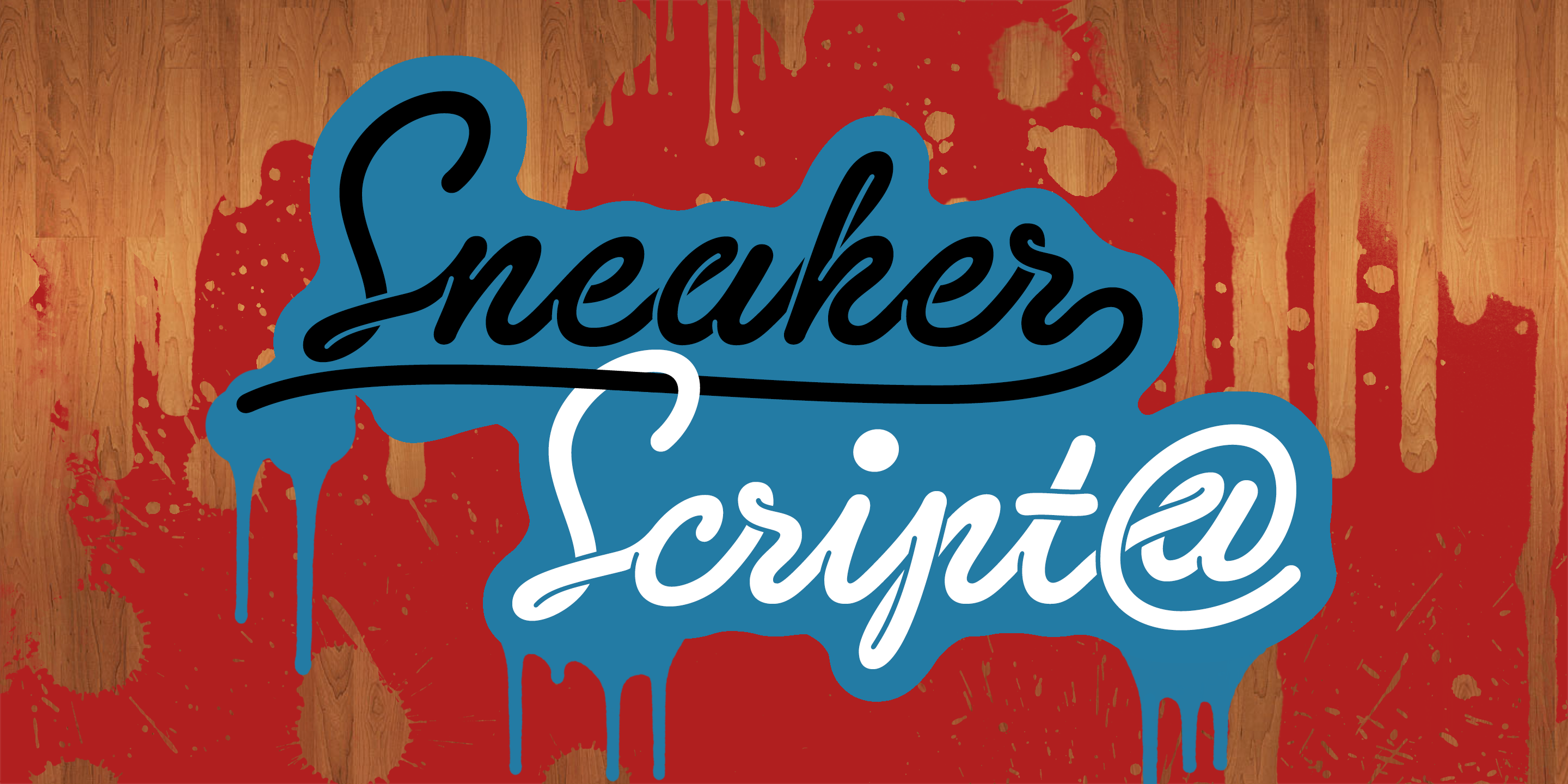
This versatile Sneaker Script Font is perfect for a wide range of creative projects, including branding, packaging design, apparel graphics, social media posts, website headers, album covers, and personal invitations. Its unique style truly shines in contexts where a blend of athletic energy and artistic flair is desired.
What makes Sneaker Script Font so exciting is its dynamic and fluid design, evoking a sense of motion and authenticity. It’s a font that speaks to youth culture, streetwear trends, and the vibrant energy of urban life. The brush-like strokes and natural flow give it an approachable yet impactful character, making your text stand out without being overly formal. Its legibility, despite its artistic nature, is a key strength, ensuring your message is conveyed clearly and stylishly.
The Sneaker Script Font family typically includes a range of weights and styles to provide maximum flexibility for designers. While specific family members can vary, you can often expect to find regular, bold, and potentially italic versions, allowing for diverse applications and visual hierarchies within your designs. Some versions might even offer alternative characters or ligatures to enhance its hand-drawn feel.
Whether you're crafting an eye-catching logo for a new sneaker brand, designing a bold t-shirt graphic, or creating engaging promotional materials, the Sneaker Script Font Free Download offers an invaluable tool to elevate your creative vision. Its modern aesthetic and energetic appeal make it a go-to choice for projects that demand a fresh, contemporary look.